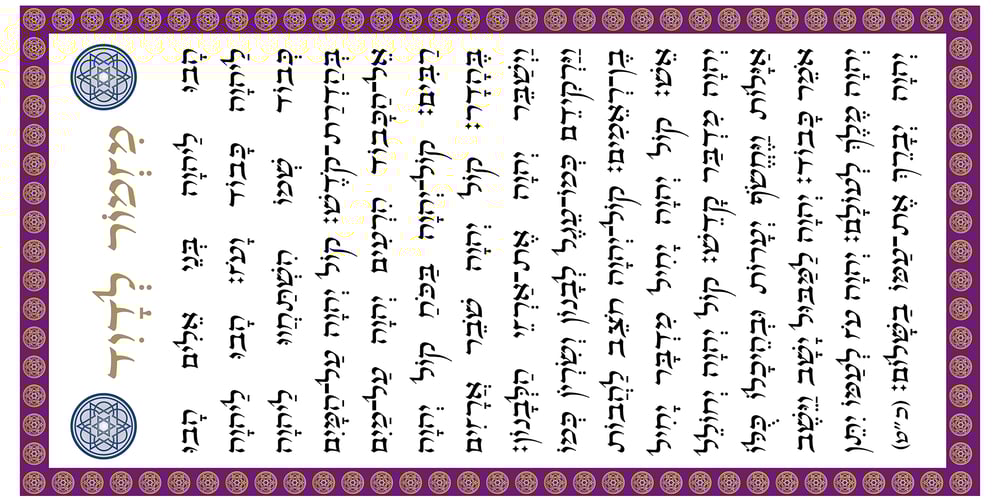
Hebrew Julit
Hebrew Julit font
Hebrew Julit Font Family was designed by Sami Artur Mandelbaum and published by Samtype. Hebrew Julit contains 1 styles and family package options. Beautiful and elegant typeface, excelent using in wedding invitations, arts, posters and small texts.